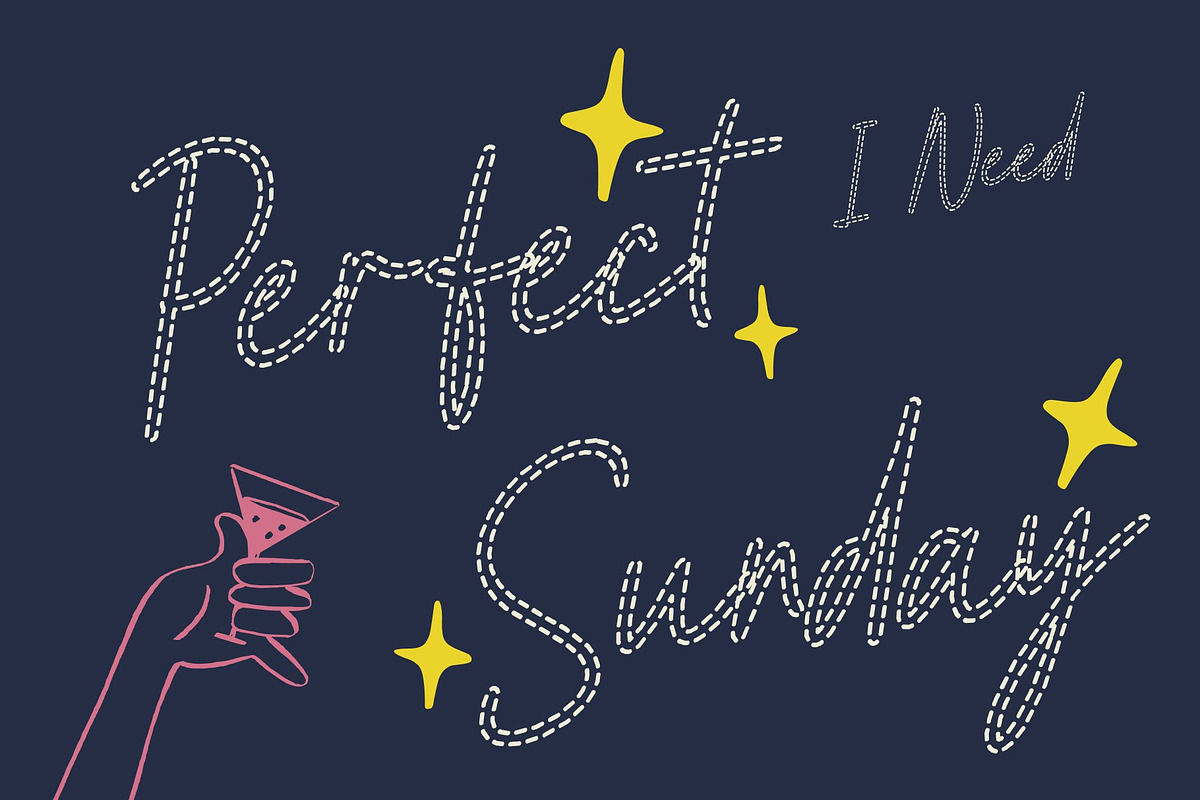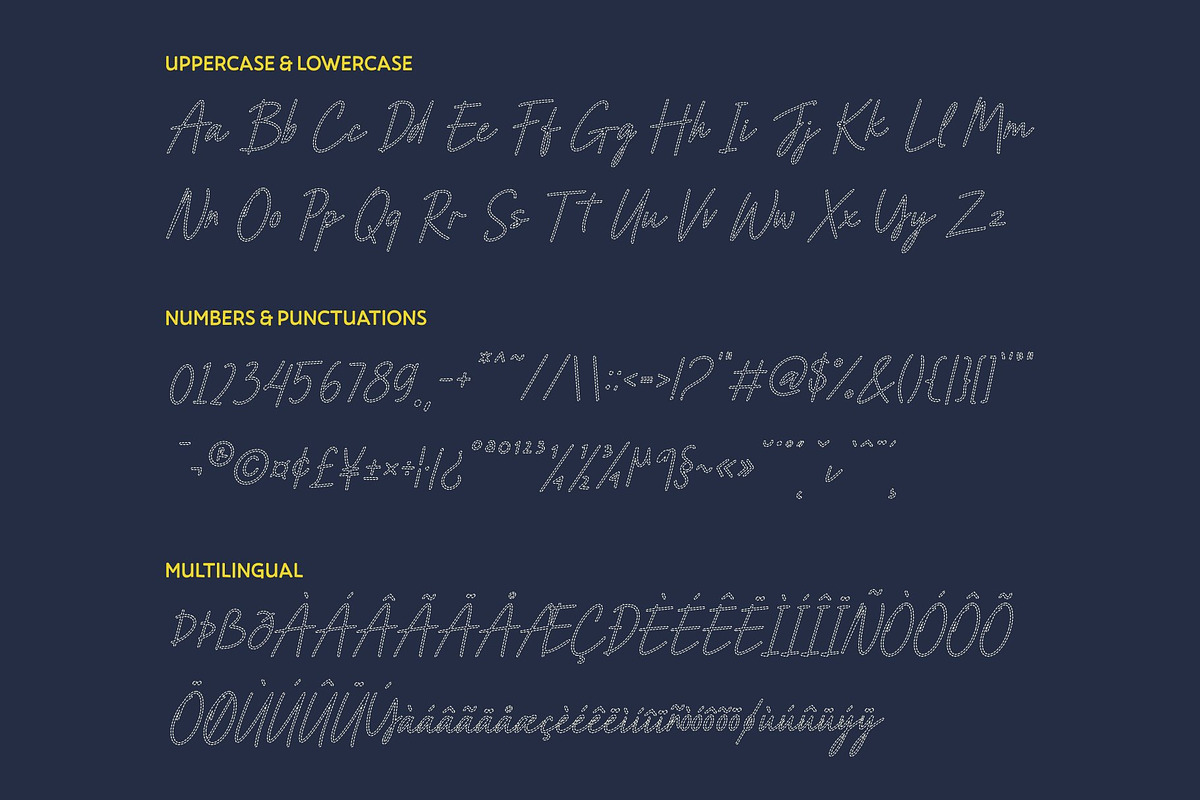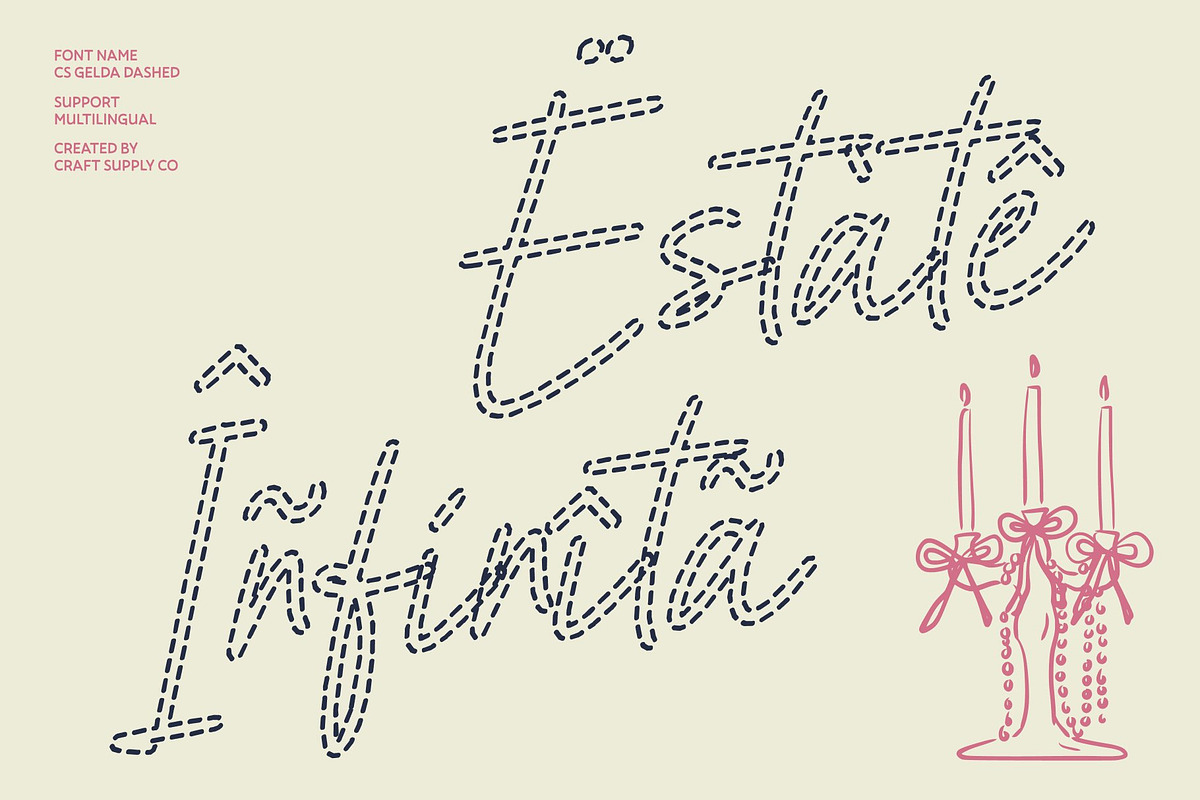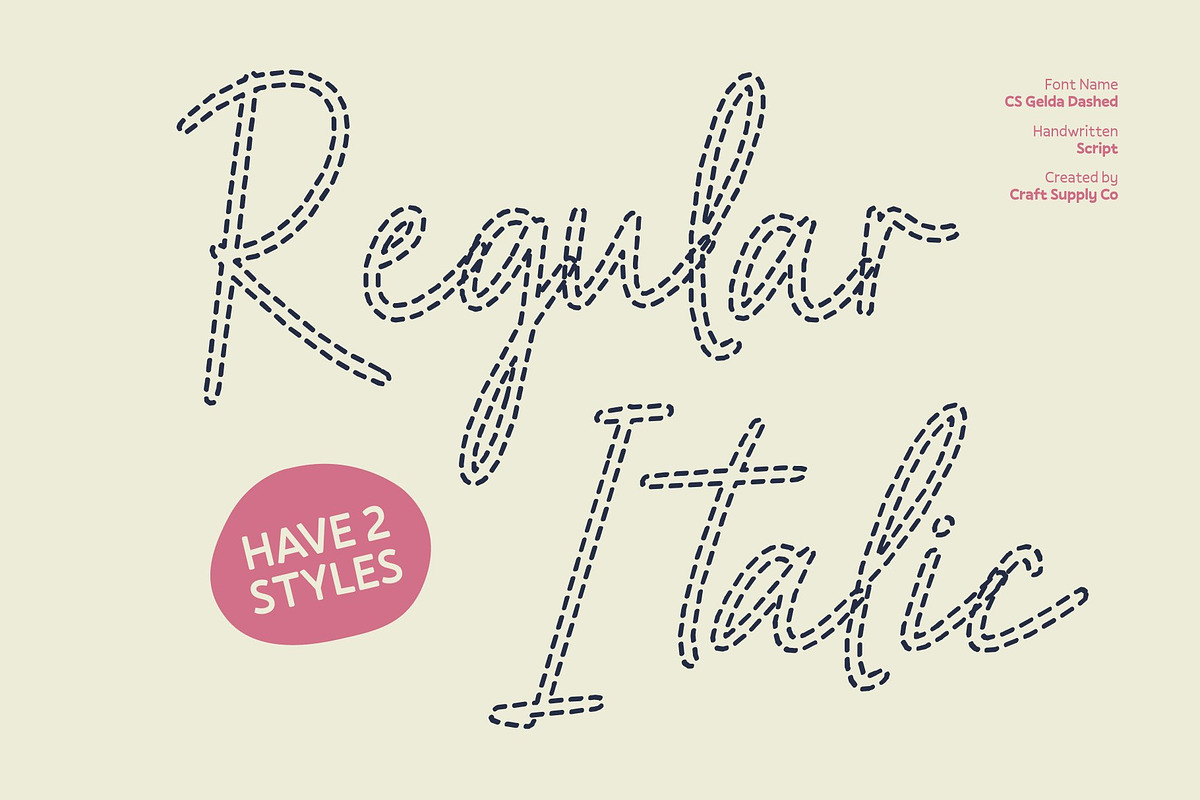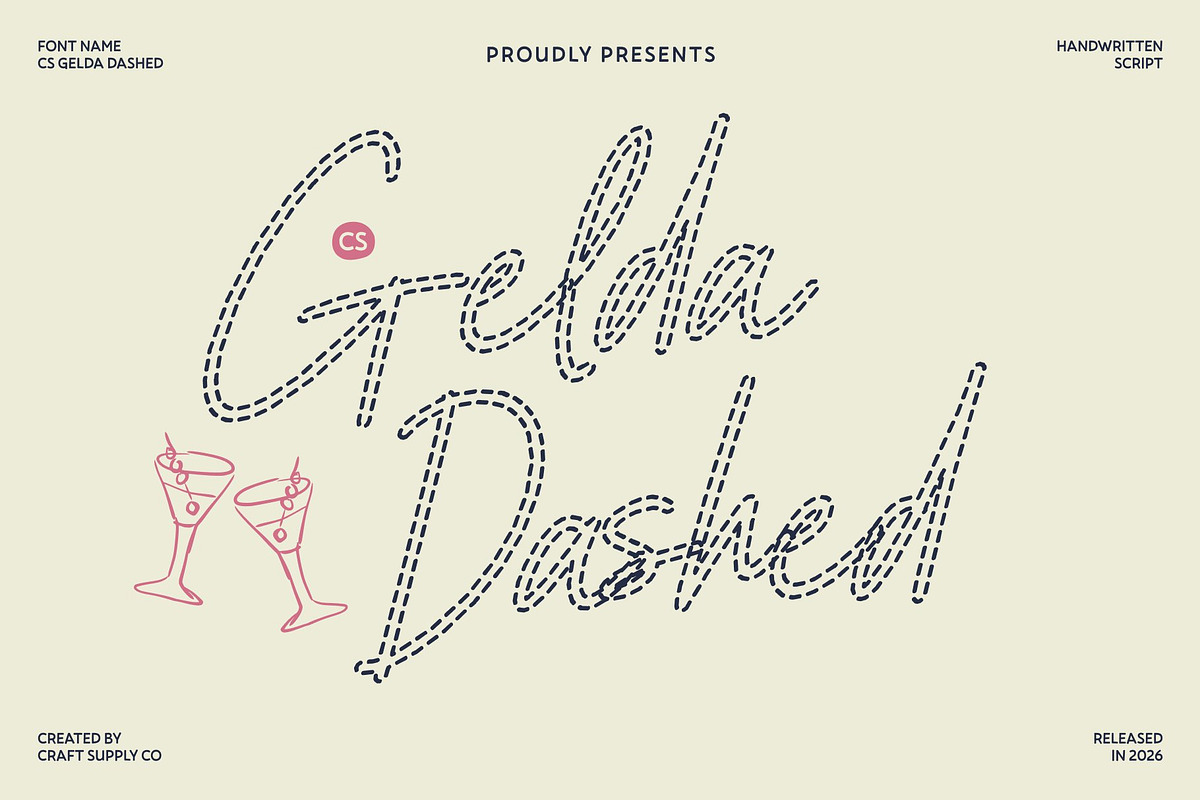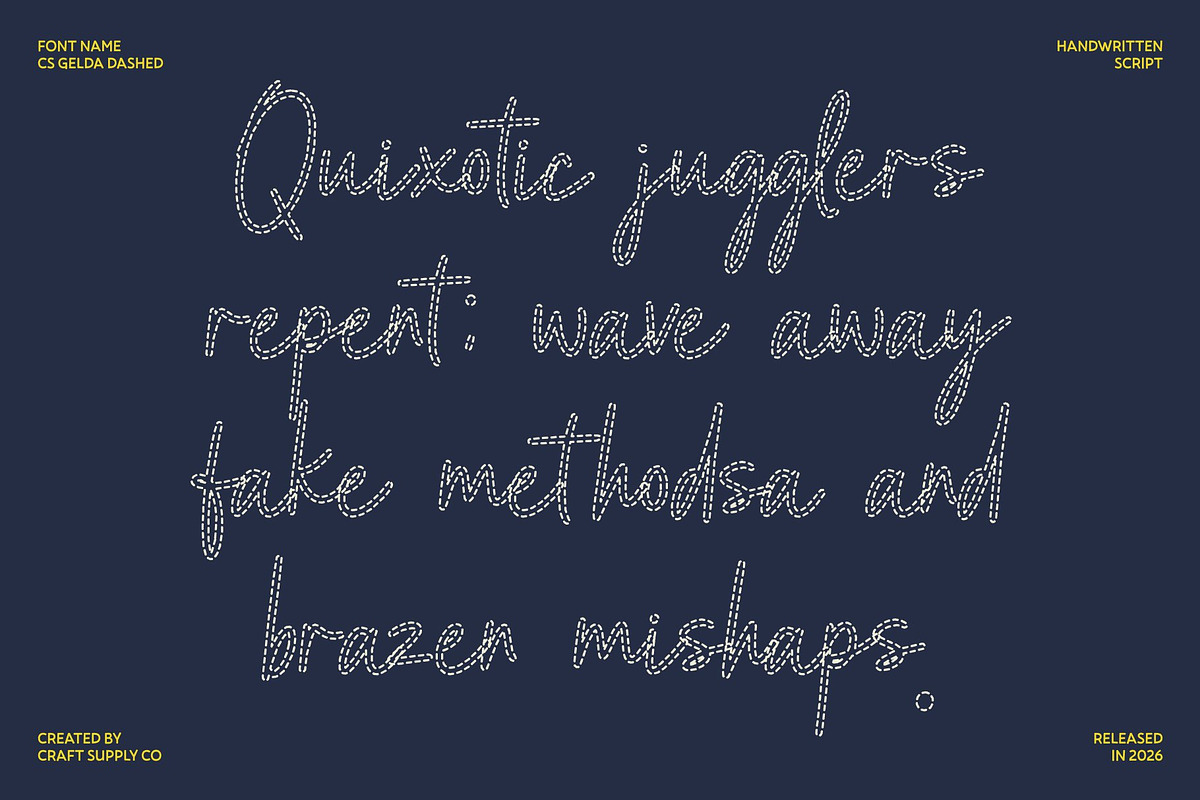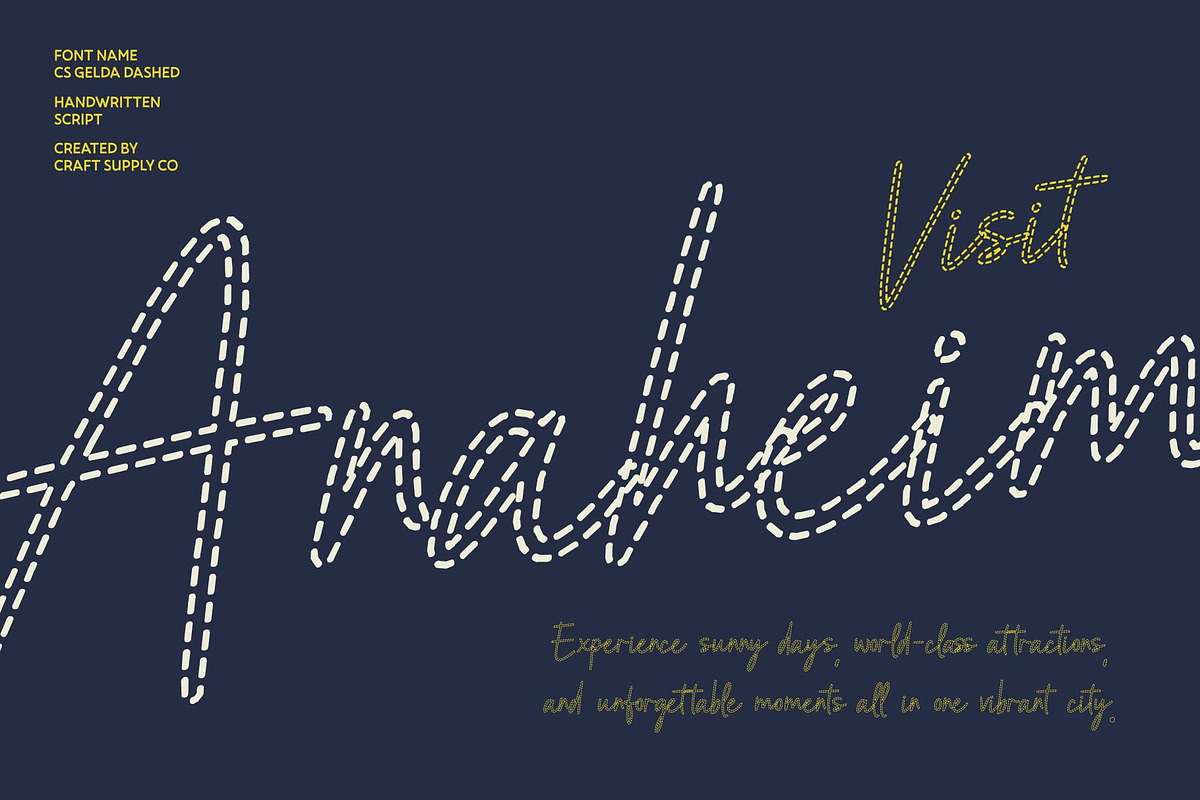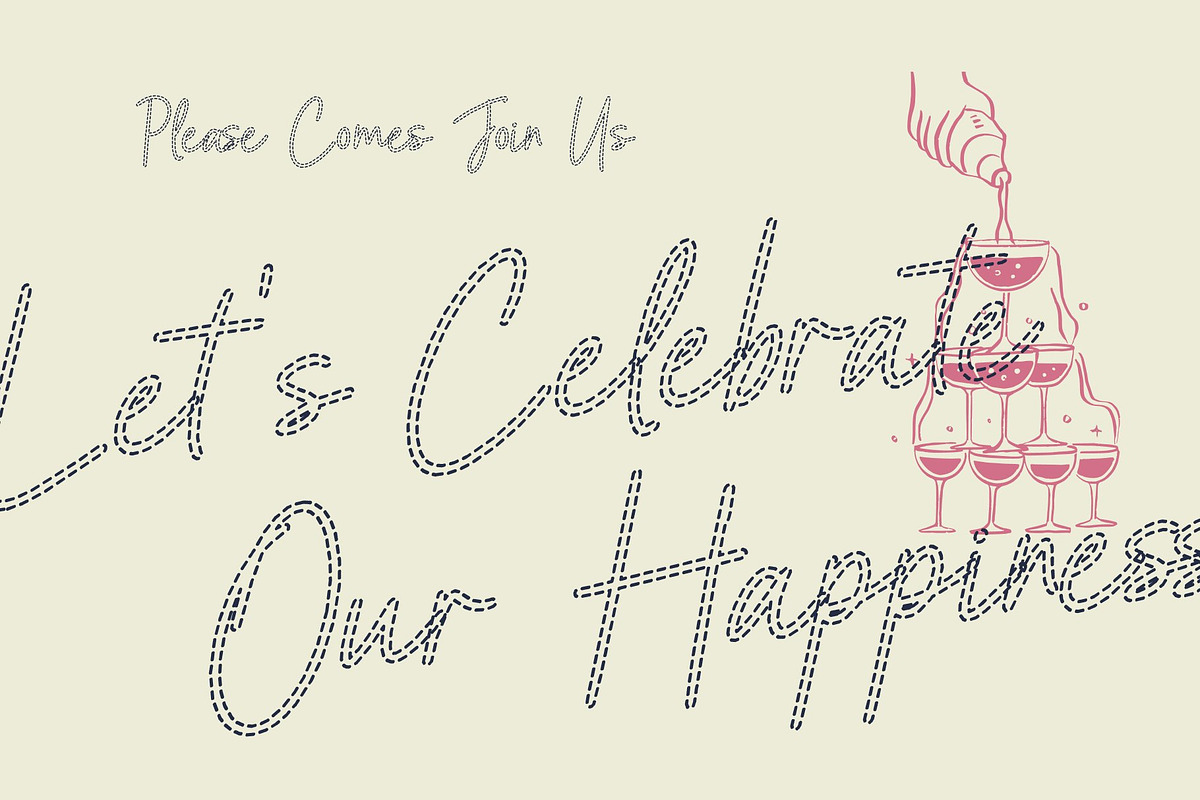
CS Gelda Dashed
CS Gelda Dashed – Handwritten Script Font: Modern Elegance in Every Stroke
Refined Beauty with a Contemporary Dashed Touch This is a modern script font that blends graceful flow with contemporary refinement. Its sleek proportions and balanced rhythm create a polished handwritten look that feels both personal and sophisticated. The distinctive dashed construction transforms each stroke into a series of fine, broken segments, adding lightness and artistic texture to its elegant form.
Dashed Monoline Flow with Italian Sophistication Inspired by the charm of Italian handwriting and timeless luxury, this font radiates confidence and style. The smooth monoline structure remains consistent, while the segmented strokes introduce a soft, airy rhythm that enhances the sense of movement. This dashed detailing mimics the gentle lift of a pen, giving the font a relaxed yet refined personality romantic, modern, and visually captivating.
Perfect for Branding and Luxury Design From branding and wedding invitations to luxury packaging and fashion editorials, elevates every design with subtle artistry. The broken-line construction adds a creative edge, while the flowing script maintains an upscale and professional presence. It’s ideal for projects that aim to feel exclusive, stylish, and thoughtfully crafted.
Versatile, Timeless, and Distinctively Elegant Whether applied to elegant stationery, digital graphics, logos, or social media visuals, adapts beautifully across mediums. Its harmonious flow combined with its airy dashed strokes makes it a perfect choice for designers who seek sophistication with a modern, expressive twist.
CS Gelda Dashed Regular
CS Gelda Dashed Italic